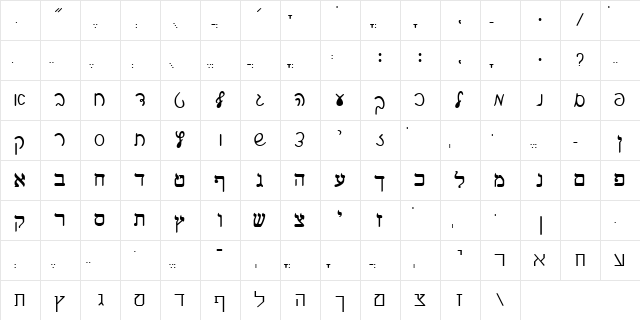
Shalom Regular
Design Context for Shalom Typeface
Shalom is a composed and adaptable typeface that performs quietly and consistently across a wide range of design contexts.